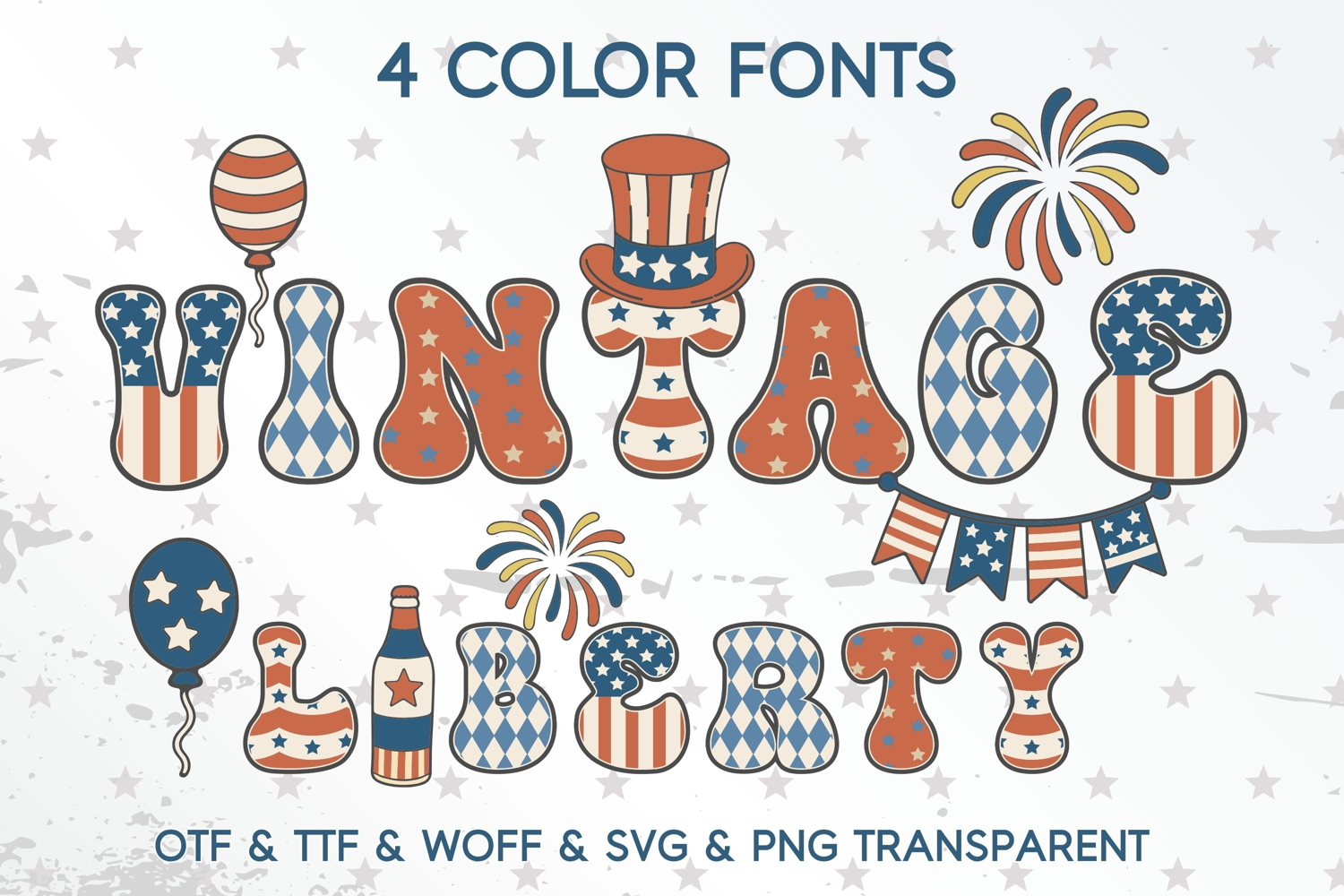
Vintage Liberty - 4 Color fonts
Celebrate freedom, independence, and classic Americana style with the Vintage Liberty Color Font Bundle! This unique patriotic alphabet features playful retro-inspired letters decorated with stars, stripes, fireworks, balloons, bows, flags, and festive Fourth of July elements. Perfect for creating eye-catching designs for Independence Day, Memorial Day, Veterans Day, patriotic parties, sublimation projects, t-shirts, mugs, stickers, invitations, and more.
This font collection includes 4 color font variations, allowing you to mix and match different patriotic patterns and decorative elements for endless creative possibilities. The bundle comes in multiple formats for compatibility across popular design software and cutting machine programs.
4 color fonts included:
• Americana Vintage
• Americana Diamond
• Americana Stardust
• Americana Wave
• Uppercase Letters A–Z
• Numbers 0–9
• Basic Punctuation
• Bonus Patriotic Decorative Elements
Bring a festive vintage American spirit to your creative projects with this charming patriotic font bundle!